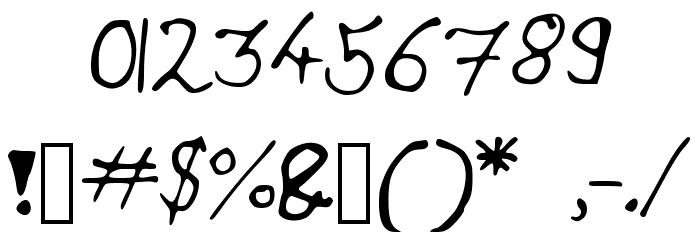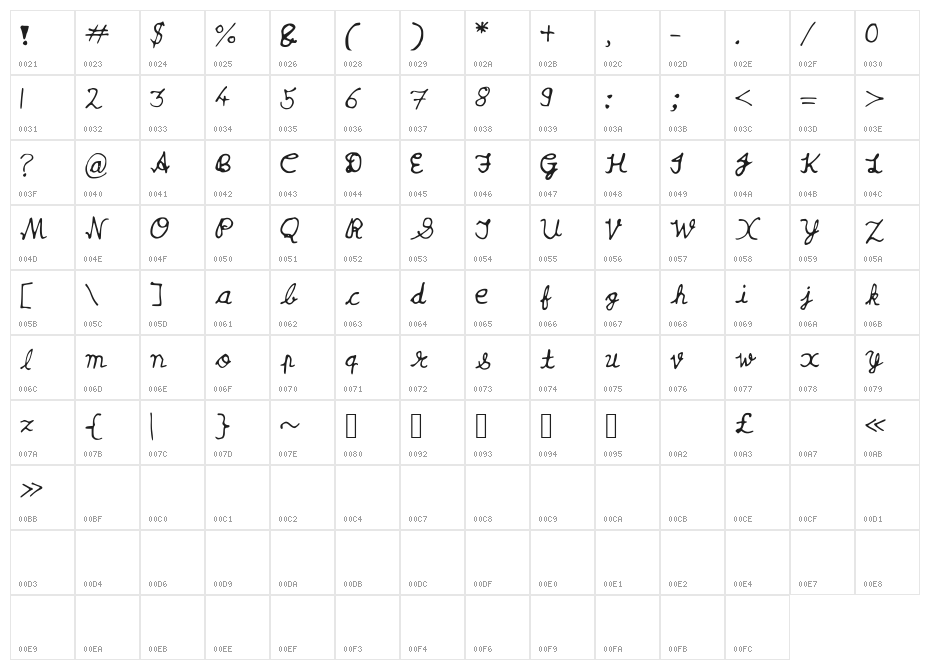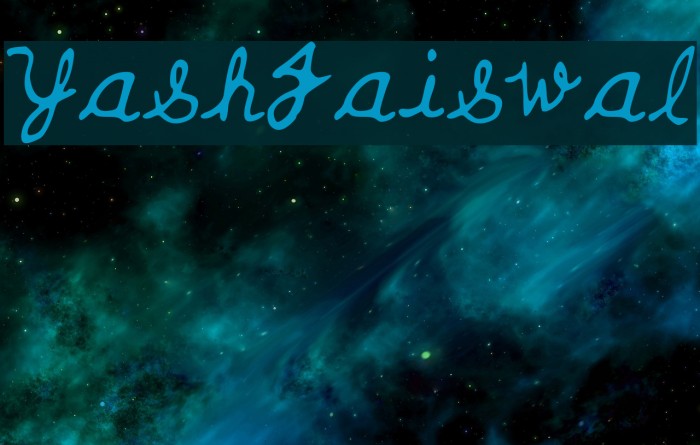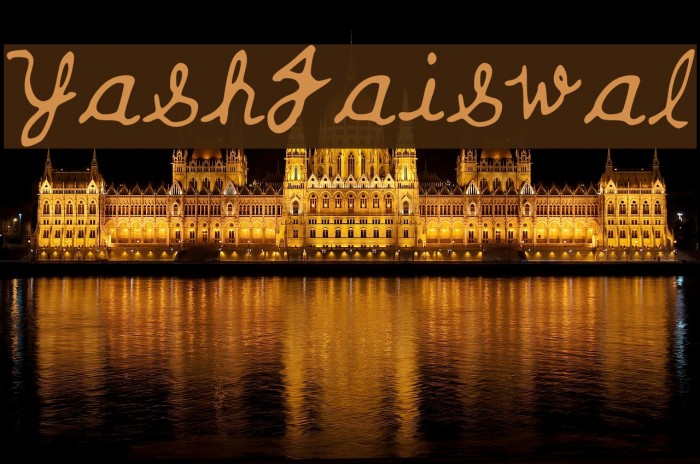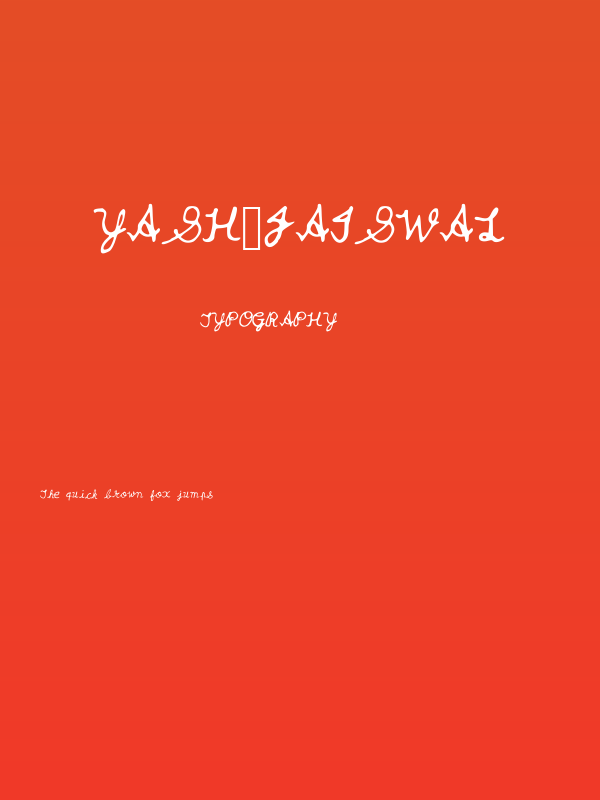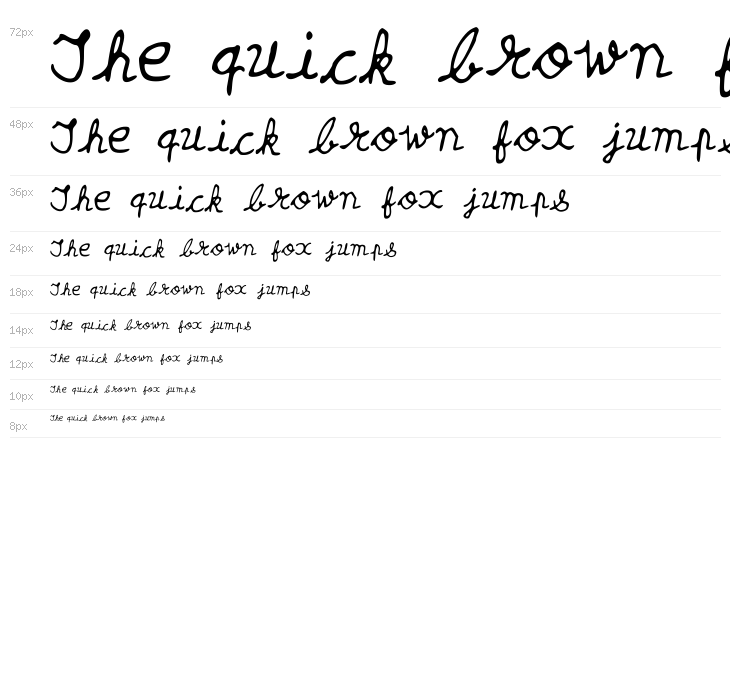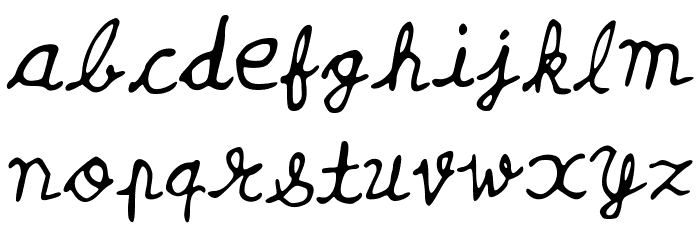
Yash_Jaiswal Font
Yash_Jaiswal Description
This font features a playful and casual handwritten style, characterized by its fluid and connected strokes. The uppercase letters have a whimsical flair, with varying stroke thickness that adds a dynamic quality to the text. The lowercase letters maintain a consistent flow, enhancing readability while retaining a personal touch. Numbers are clear and distinct, matching the overall style of the alphabet. Special characters are creatively integrated, maintaining the font's cohesive look. This font is ideal for projects that require a personal, informal, and approachable aesthetic.
| Overall Style | Casual and Playful |
| Proposed Projects | Ideal for greeting cards, invitations, personal branding, and creative projects that require a friendly and informal touch. |